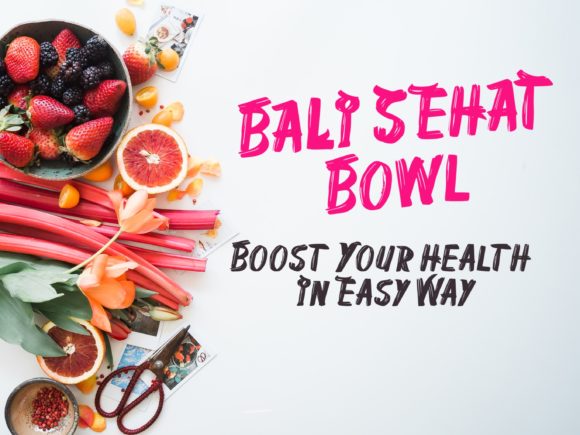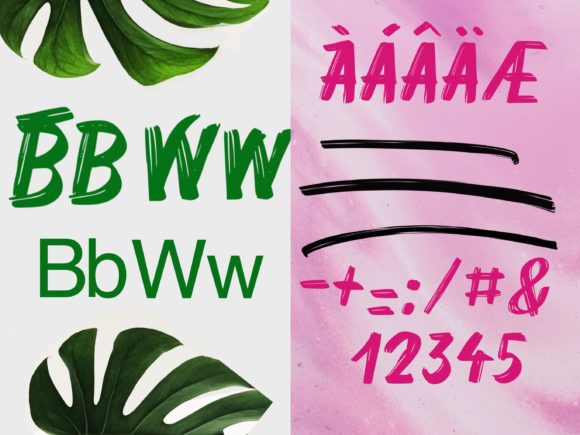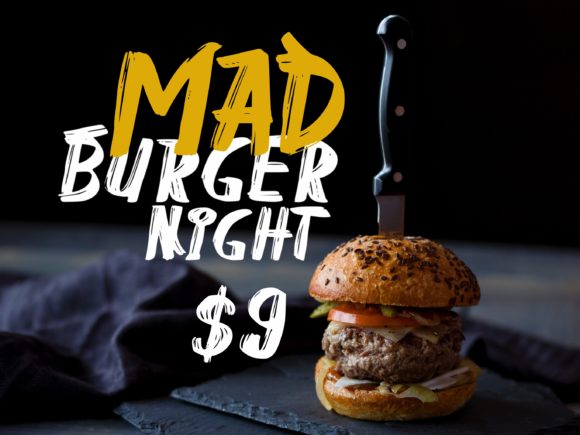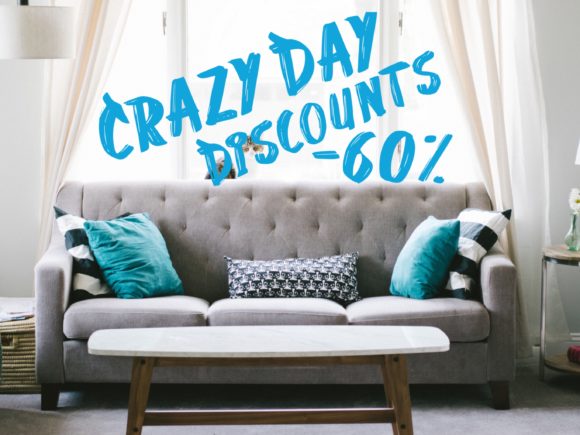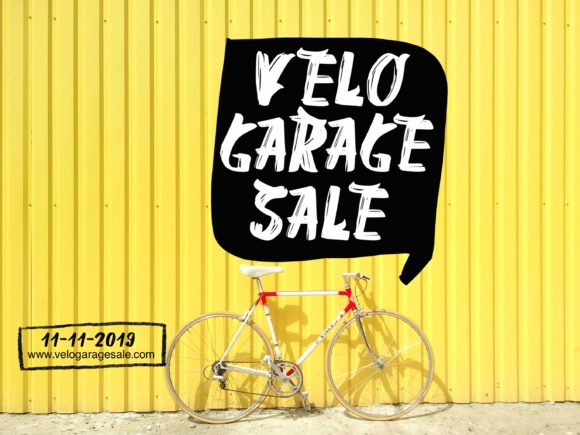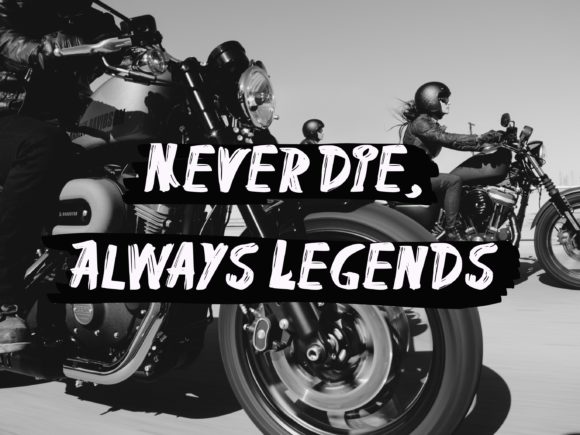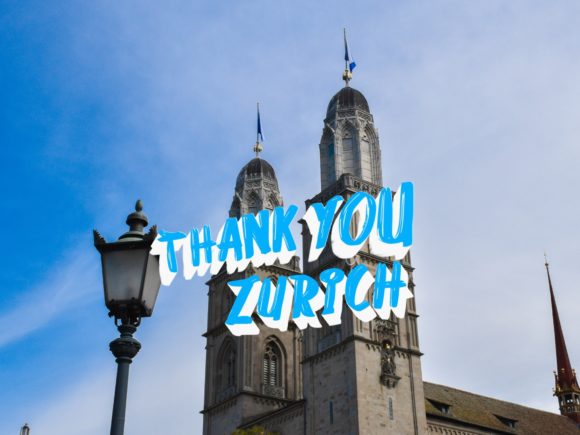
HomeScript FontsMana Font Script Fonts Mana Font FacebookXPinterestWhatsApp Mana Font Poster 2 Mana Font Poster 3 Mana Font Poster 4 Mana Font Poster 5 Mana Font Poster 6 Mana Font Poster 7 Mana Font Poster 8 About Mana Font Mana is a handbrush font. It has a simple and unique look that will add a special touch to any craft project. DOWNLOAD ON CREATIVE FABRICAThis font is sold and delivered by Creative Fabrica. Font Canyon may earn a commission if you buy through this link. People also explored Stefina Font Horelios Font Homework Font Ranmor Michella Font Christmas at Home Font Nathain Font Ladylike Font Signaturistar 343 0 TagsMana Font Previous articleCarmelio FontNext articleFaliansiana Font LEAVE A REPLY Cancel reply Comment: Please enter your comment! Name:* Please enter your name here Email:* You have entered an incorrect email address! Please enter your email address here Website: Save my name, email, and website in this browser for the next time I comment. Personal Use Free Anggiana Personal Use Free Read more about this font Cosmos Personal Use Free Read more about this font BD Medled Personal Use Free Read more about this font Nikoleta Personal Use Free Read more about this font BLOG Top 10 Handwritten Fonts That Elevate Your Designs Top 10 Handwritten Fonts That Will Elevate Your Designs Handwritten fonts bring a warm, personal touch to every creative project. Whether you're designing logos, invitations,... Exploring Font Trends Free Fonts Risk: Why Free Fonts Can Be Dangerous for Designers Free vs Paid Fonts: Why Investing in Premium Fonts Is Worth It